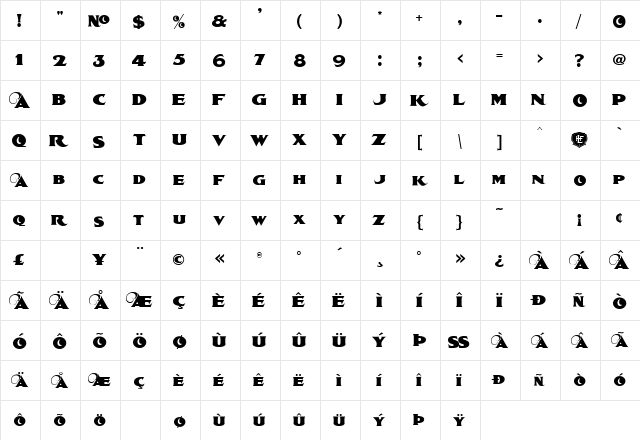
LHF Spurred Egyptian Regular
Design Context for LHF Spurred Egyptian Typeface
LHF Spurred Egyptian features prominent, blocky serifs that give it a confident, grounded presence — equally at home in editorial settings and bold branding work.
Works well in editorial design, news publishing, impactful branding, and poster typography.
Pro Tip: Try LHF Spurred Egyptian set tight in headlines for a classic editorial feel. Its slab serifs create strong horizontal rhythm that anchors a page layout.